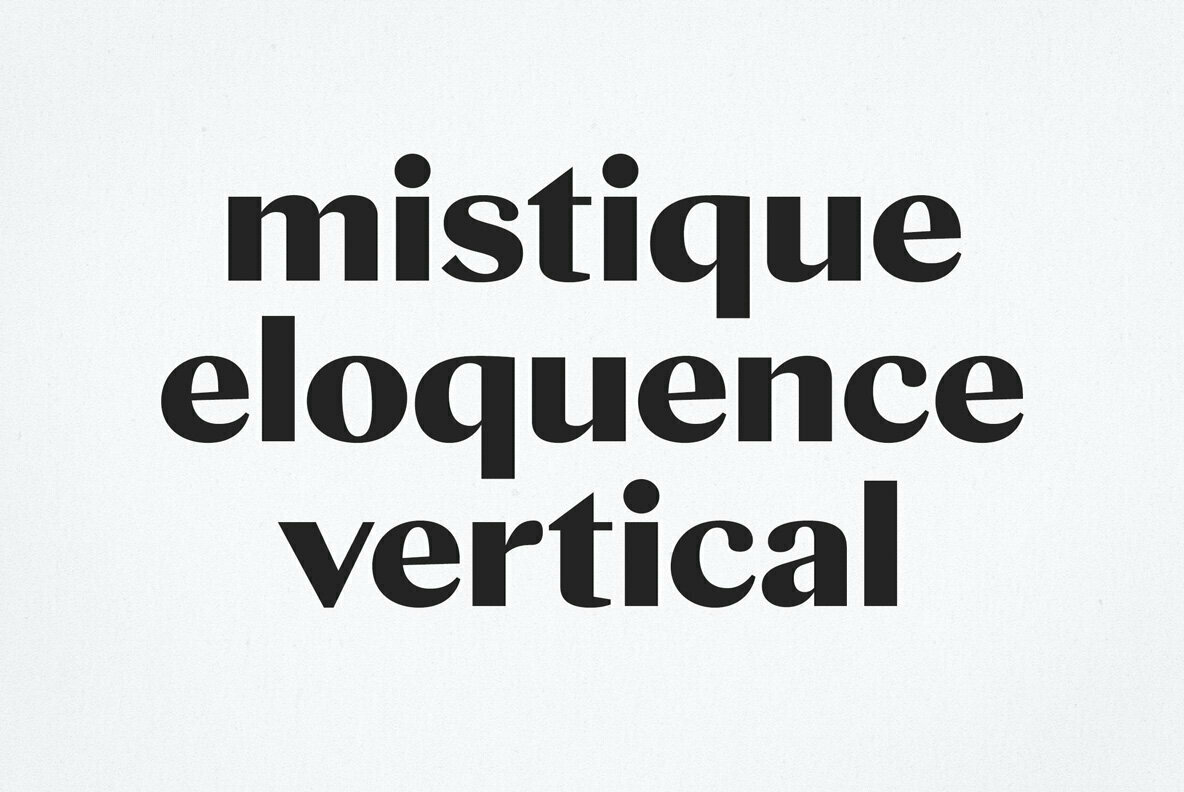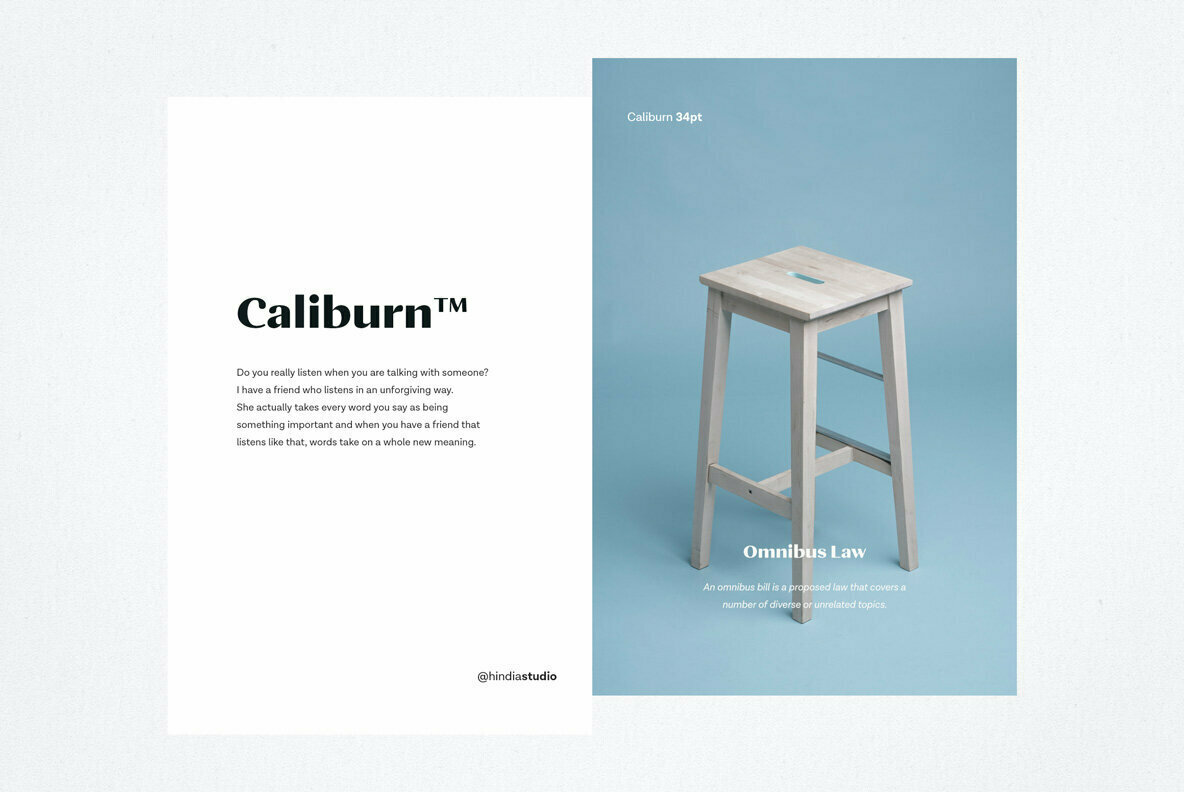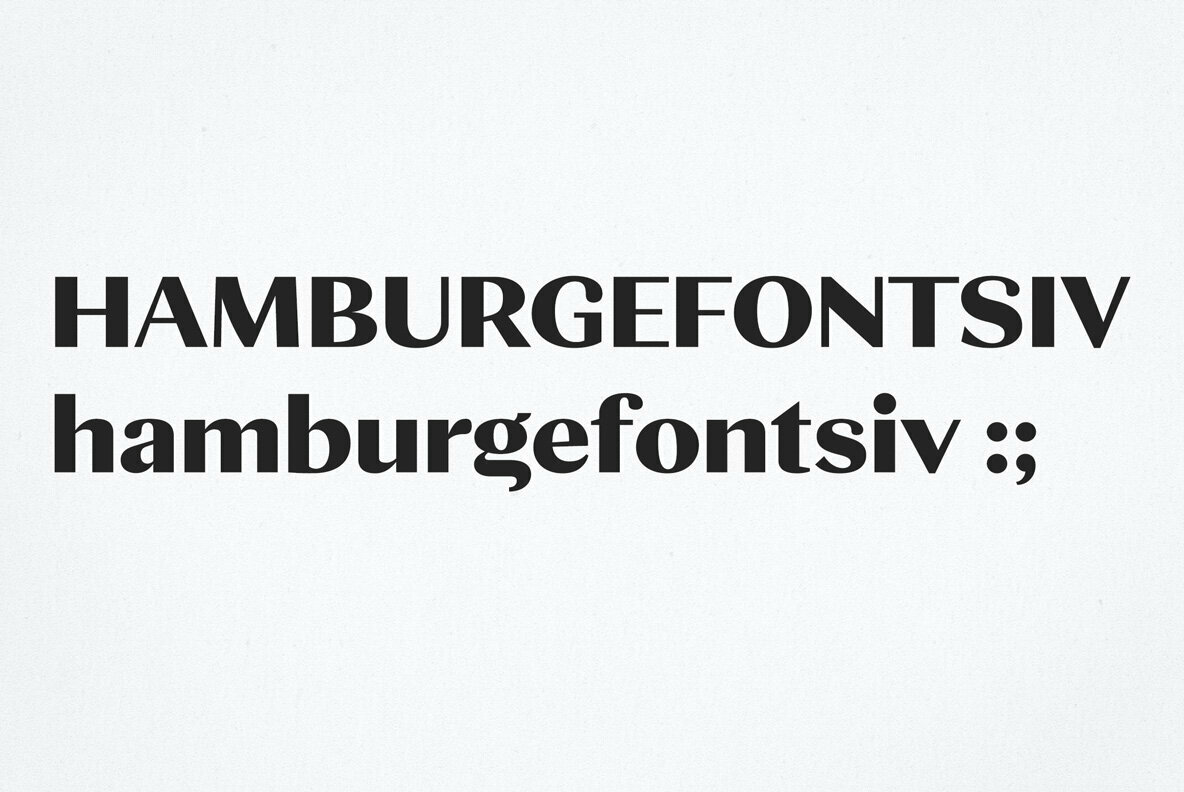
Caliburn Font
Caliburn Bold
Caliburn offers a bold, clean, and elegant typography option with a distinct vintage flair. Tailored for elegant-themed projects, it seamlessly fits into designs requiring simplicity and sophistication. Whether you're crafting logos, titles, or magazine layouts, Caliburn adds a refined edge to your creative endeavors.Caliburn: Bold Elegance with a Vintage Touch